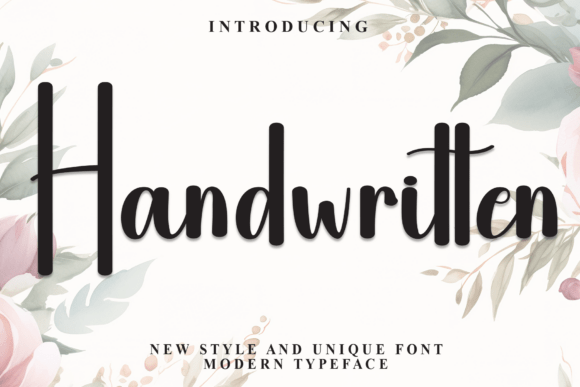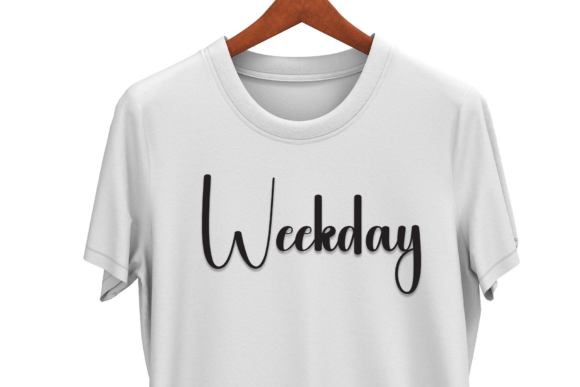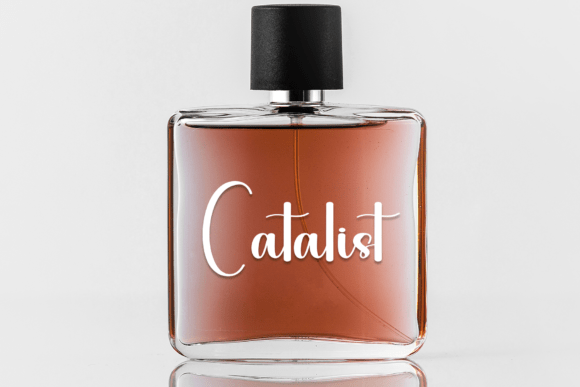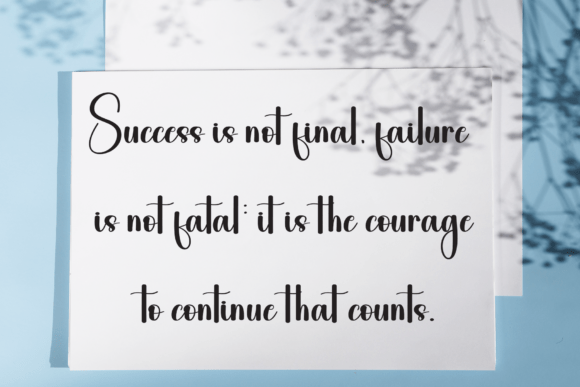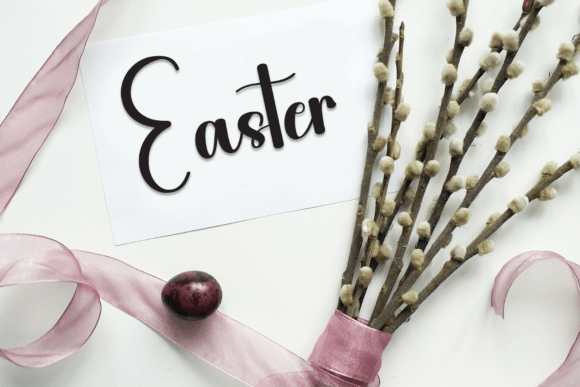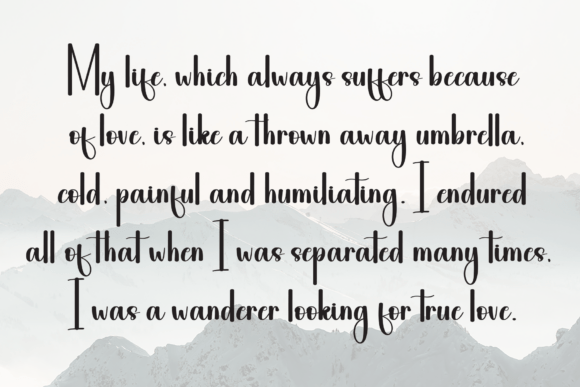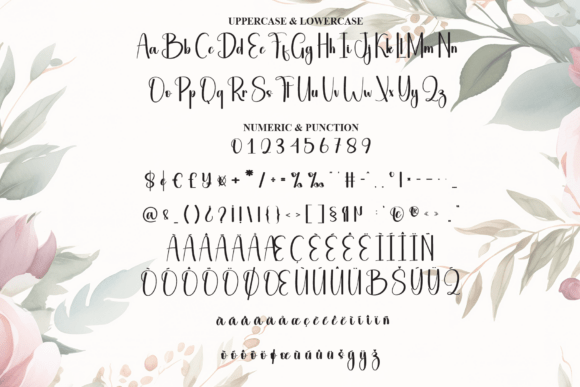
Where Creativity Meets Joy: Introducing the Handwritten Font
Have you ever found yourself scribbling away in a notebook, pouring your heart and soul into a handwritten letter or a heartfelt gift card? The feeling of putting pen to paper and watching your words come to life is truly magical. It’s this same sense of joy and playfulness that the Handwritten Font embodies, making it the perfect addition to any creative project.
This charming display font is designed to add a touch of whimsy and friendliness to your designs, whether it’s an animated wedding invitation, a lively greeting card, or any other element that needs a dash of fun and flair. As a designer, you’ll love the Handwritten Font for its versatility and ability to inject a joyful vibe into your work.
Key Features of Handwritten Font
- Unique Characteristics: Handwritten Font features a distinctive, cursive style with subtle imperfections, giving it a personal and artistic touch.
- Language Support: The font supports a wide range of languages, including Latin, Cyrillic, and Greek alphabets, making it suitable for global branding and design projects.
- Stylistic Sets: Handwritten Font includes 5 stylistic sets, allowing users to customize the font’s appearance and create unique variations.
- Special Characters: The font includes a range of special characters, including ligatures, swashes, and flourishes, adding an extra layer of creativity and flair to designs.
Review: Handwritten Font
Overall, I’d say the Handwritten Font is a great addition to any designer’s toolkit. ✨ The font’s unique, cursive style is perfect for creating a personal and touchable feel in any design project. It’s especially great for use in invitations, greeting cards, and other materials where a handwritten touch is desired.
The font’s variations in letterforms and strokes make it look authentic and natural, which is a big plus in my book. ✨ It’s also worth noting that the font is highly legible, even at smaller sizes, making it suitable for use in a wide range of contexts.
While the Handwritten Font is a great choice for many projects, it’s not without its limitations. ⚠️ One of the main issues is that the font may not be the best choice for projects that require a more formal or corporate tone. Additionally, the font’s cursive style can sometimes make it difficult to read at very small sizes.
Overall, I’d give the Handwritten Font 4 out of 5 stars. It’s a great choice for designers who want to add a personal touch to their projects, but it may not be the best choice for every project. ✨ With its unique style and high legibility, it’s a great addition to any designer’s toolkit.